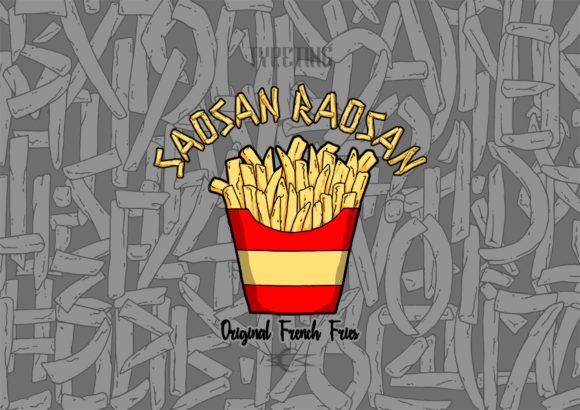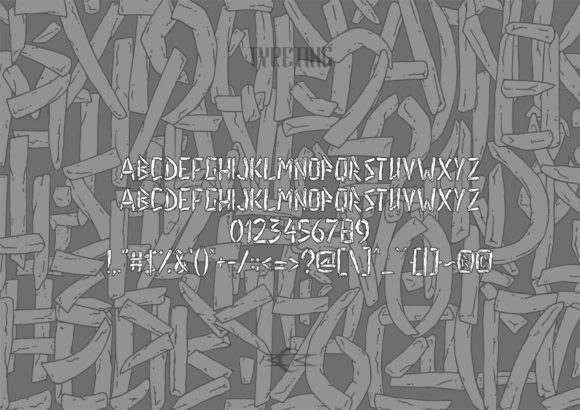
French Fries Font: The Playful Display Font for Foodies and Party Enthusiasts
Are you looking for a font that’s sure to add a dash of fun and whimsy to your designs? Look no further than the French Fries Font! This hilarious display font consists of, as its name suggests, playful and fun french fries that make up its letters. It’s great for any party-, BBQ- or food-related projects, and is sure to bring a smile to the faces of your audience.
What Makes French Fries Font So Special?
The French Fries Font is a one-of-a-kind display font that’s perfect for designers and crafters who want to add a touch of playfulness to their work. The font features letters made up of french fries, complete with crispy golden details and a fun, hand-drawn feel. Whether you’re designing a menu for a restaurant, a flyer for a backyard BBQ, or a social media post for a foodie friend, this font is sure to make your project stand out.
Key Features of French Fries Font
- Playful and Fun Design: The French Fries Font features a playful and fun design that’s sure to add a dash of whimsy to your projects.
- French Fry Letters: The font features letters made up of french fries, complete with crispy golden details and a fun, hand-drawn feel.
- Perfect for Foodies and Party Enthusiasts: This font is great for any party-, BBQ- or food-related projects, and is sure to bring a smile to the faces of your audience.
How to Use French Fries Font in Your Designs
- Menu Design: Use the French Fries Font to create a fun and playful menu for a restaurant or food truck.
- Party Flyers: Use the font to create eye-catching flyers for a backyard BBQ or party.
- Social Media Posts: Use the font to create fun and engaging social media posts for foodie friends or clients.
- Sign Design: Use the font to create eye-catching signs for a food-related business or event.
Tips and Tricks for Getting the Most Out of French Fries Font
Here are a few tips and tricks for getting the most out of the French Fries Font:
- Experiment with Colors: The French Fries Font looks great in a variety of colors, so don’t be afraid to experiment and find the perfect color scheme for your design.
- Use it with Other Fonts: The French Fries Font pairs well with other fun and playful fonts, so try using it with other fonts to create a unique and eye-catching design.
- Add Texture and Patterns: Add texture and patterns to your design to give it a more playful and whimsical feel.